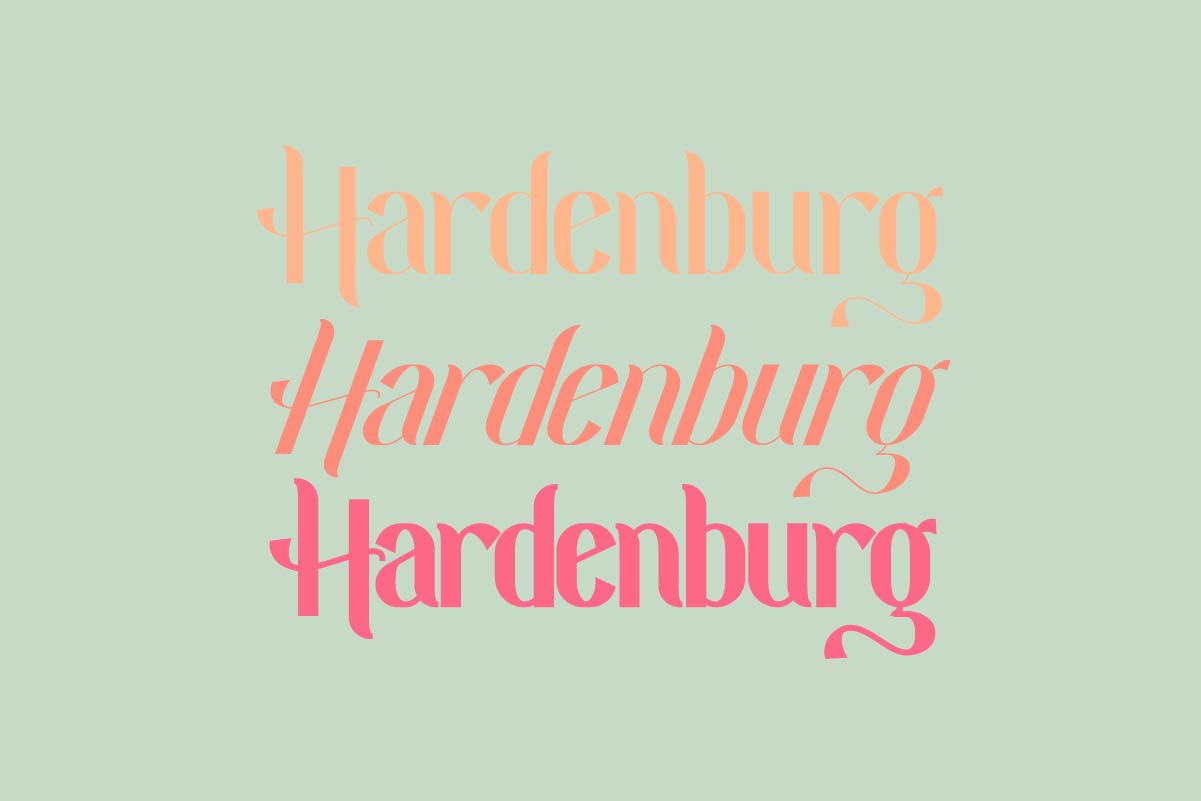
Hardenburg Font
Hardenburg Sans Serif Font
This is a sans serif display font inspired from Gothic and Medieval style. The font comes with three style options : Regular, Italic and Bold. It has stunning, mysterious, stylish, classic and vintage style. Hardenburg Font will be perfect for brandings, advertising, promotions, headlines etc. It is so elegant, classy, stylish and unique.